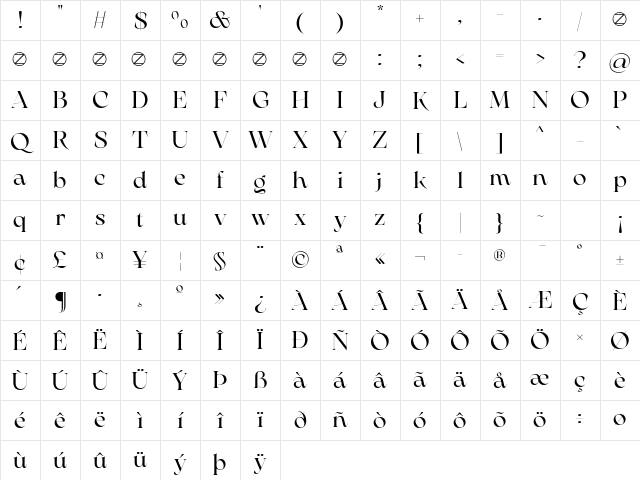
Arsenica Trial Regular
Designer: Francesco Canovaro
Design Context for Arsenica Trial
Arsenica Trial is a composed and adaptable typeface that performs quietly and consistently across a wide range of design contexts.